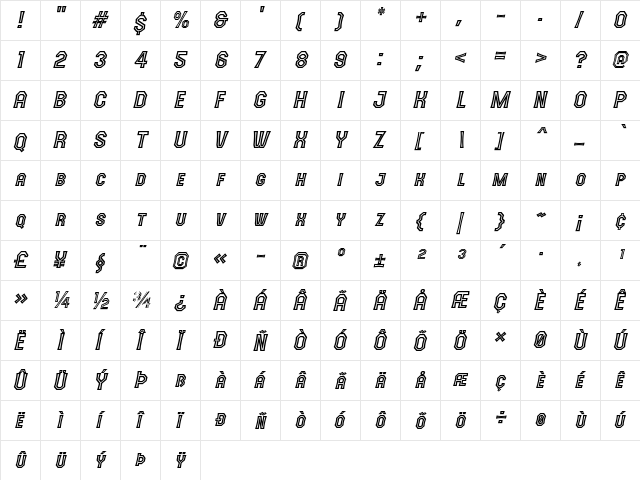
The October One Italic
| Foundry | 7NTypes |
| Designer | Situjuh Nazara |
Design Context for The October One Typeface
The October One offers clean, dependable letterforms without strong stylistic allegiance, making it a practical choice for designers who need flexibility. Its italic angle brings a sense of urgency and motion to the letterforms.
Pro Tip: Use The October One for emphasis, pull quotes, and subheadings where its slanted energy can add rhythm to the layout.